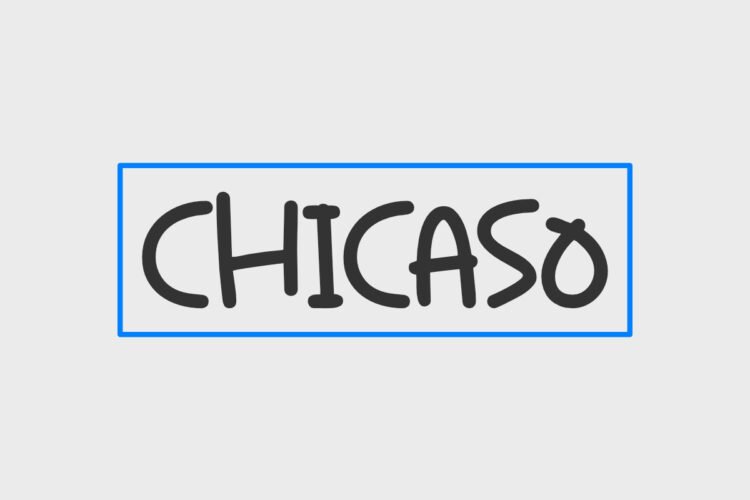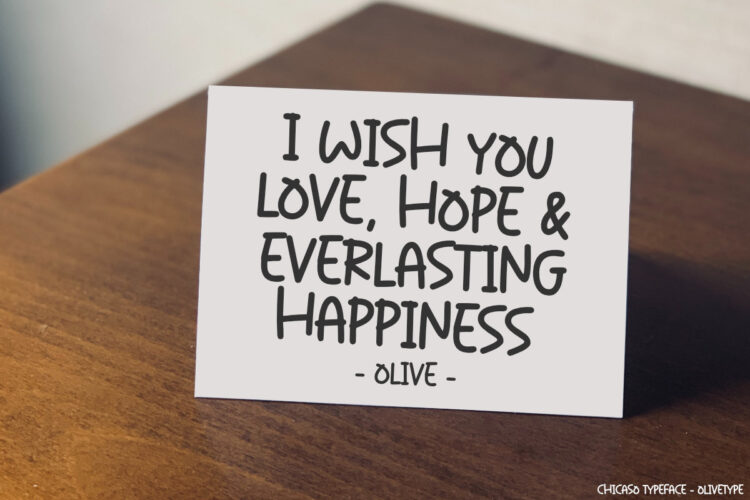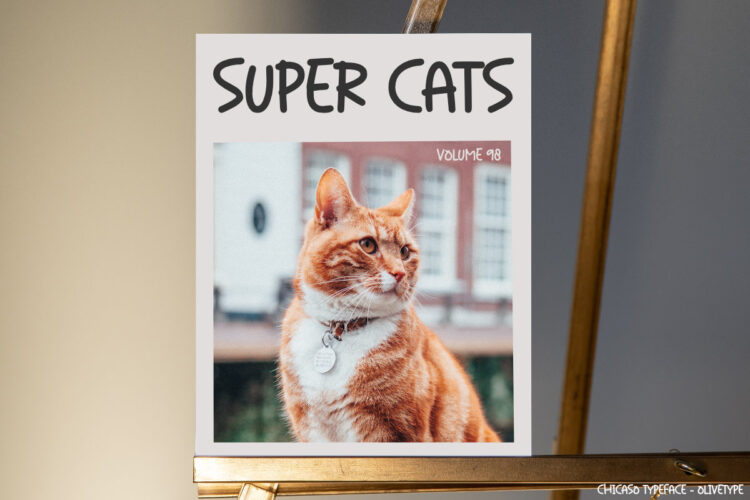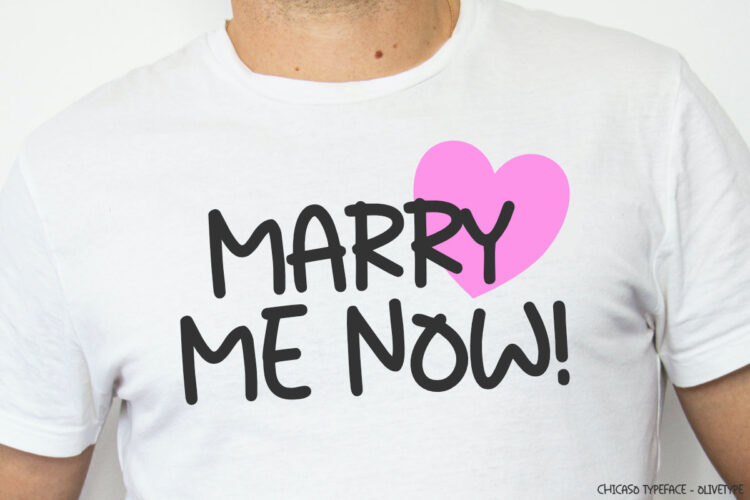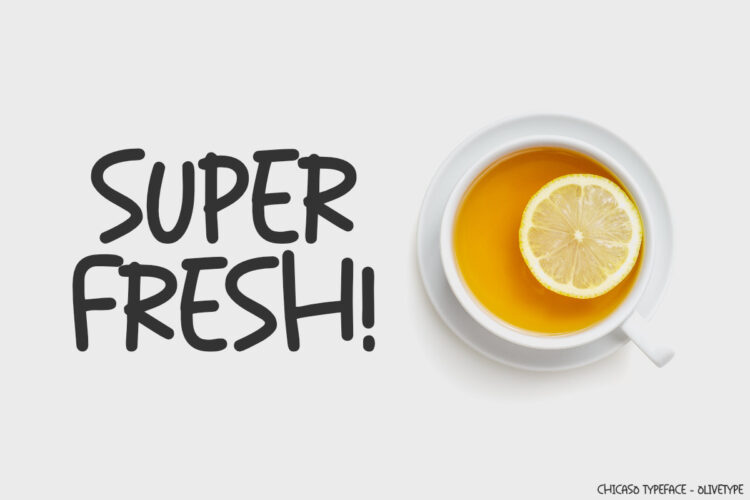
Chicaso is a fun and relaxed font. This font is upporting more than 66 languages, which include: Afrikaans Albanian Catalan Danish Dutch English Estonian Finnish French German Italian Norwegian Portuguese Spanish Swedish Zulu, and more.